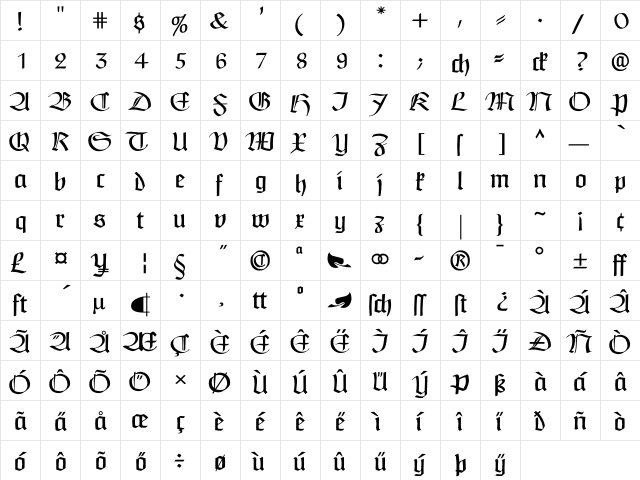
Claudius Headline Regular
| Foundry | Typographer Mediengestaltung |
| Designer | Rudolf Koch. Digitalisiert durch Dieter Steffmann, Kreuztal |
| Year | 1937 |
| Copyright | Nach geschriebenen Vorlagen von Rudolf Koch stellte sein Sohn Paul Koch 1931-1934, also noch zu Lebzeiten seines Vaters, einen Grad der Schrift her; die uebrigen Grade wurden bis 1937 durch die Schriftgiesserei Gebr. Klingspor (Offenbach/M.) |
Design Context for Claudius Headline Typeface
Claudius Headline takes a measured approach to typography — its balanced proportions and neutral character make it a reliable workhorse for both digital and print work.